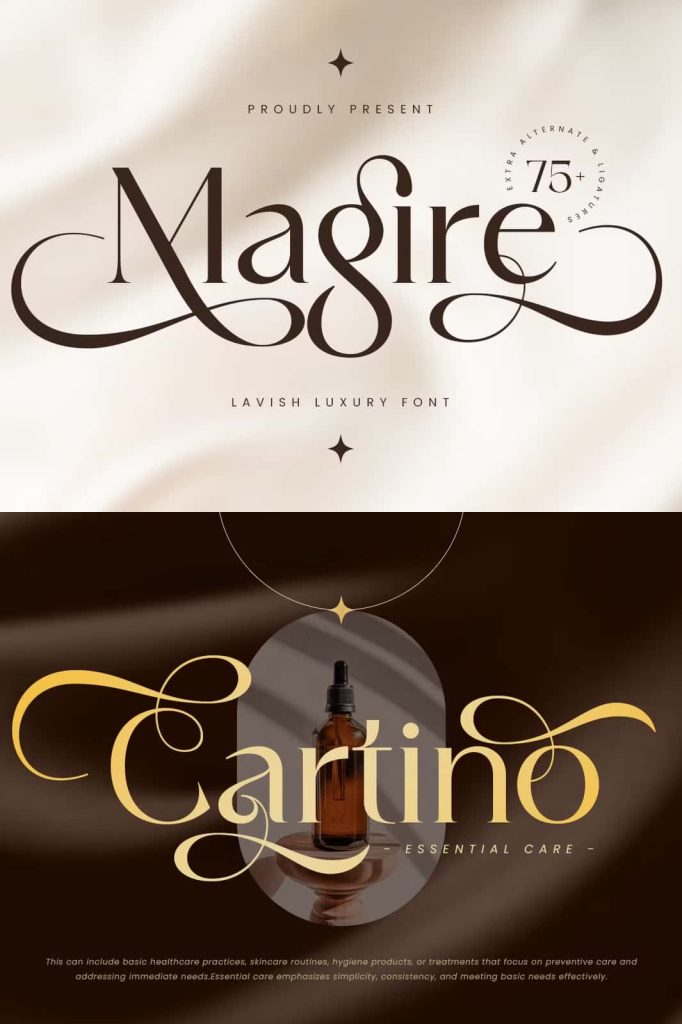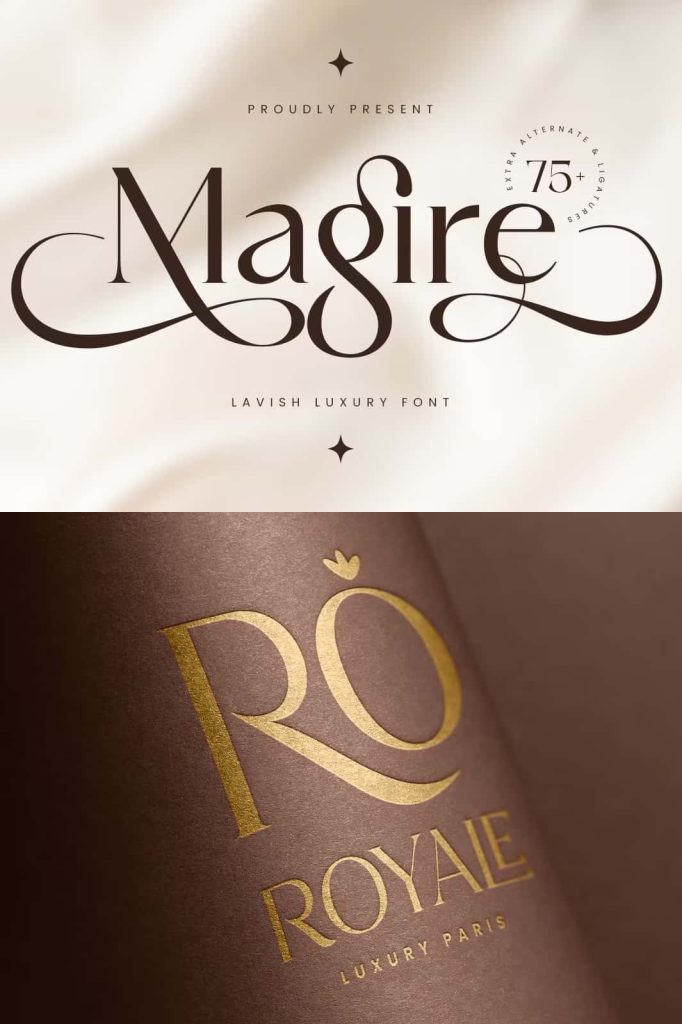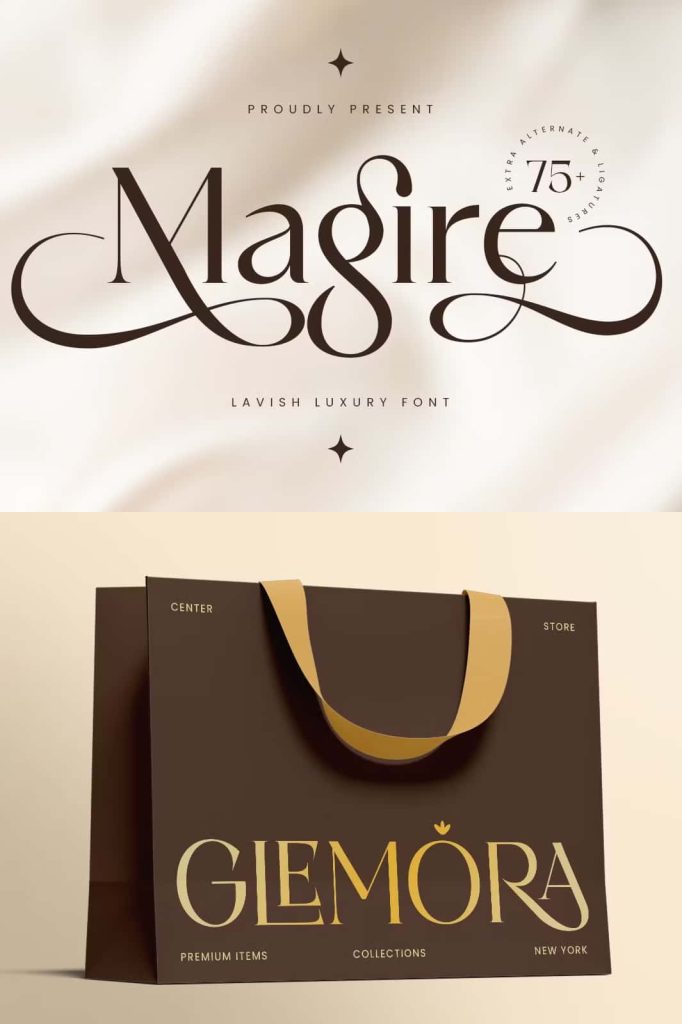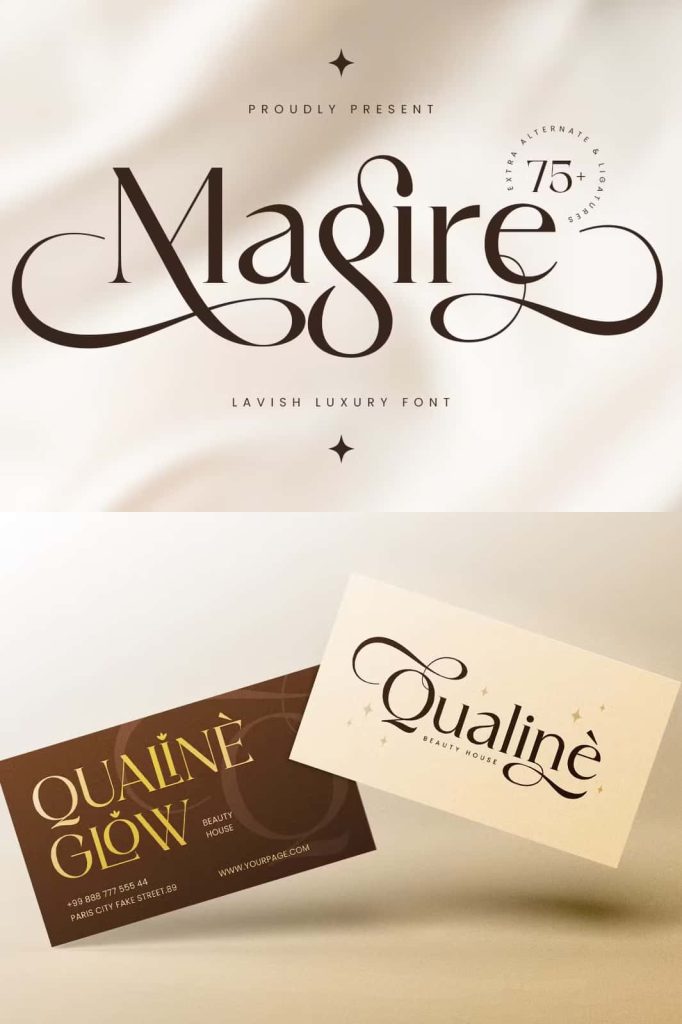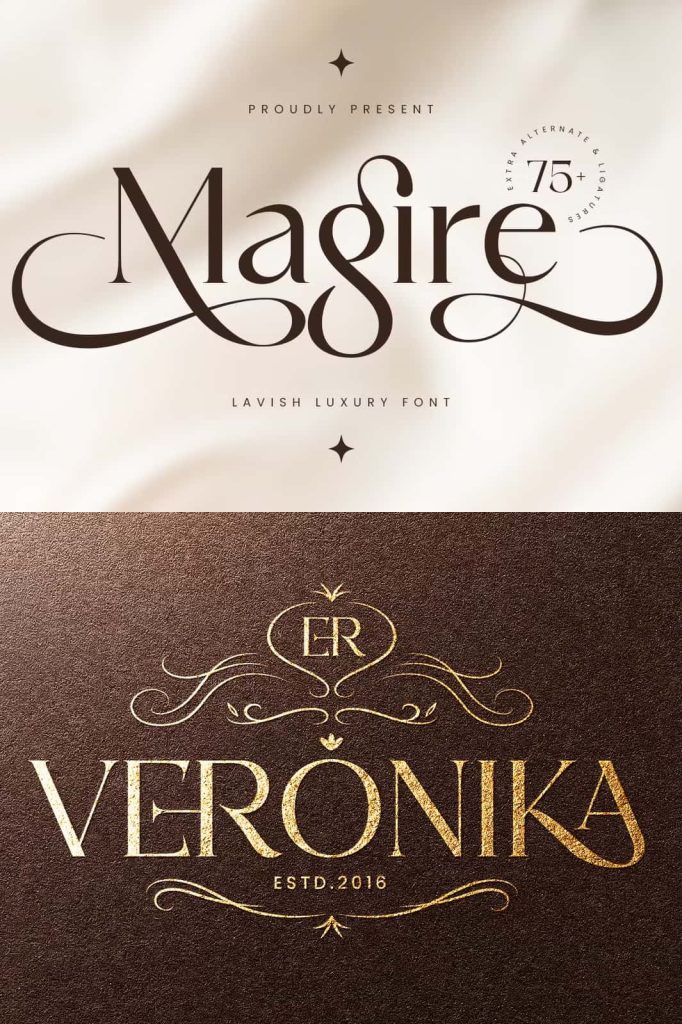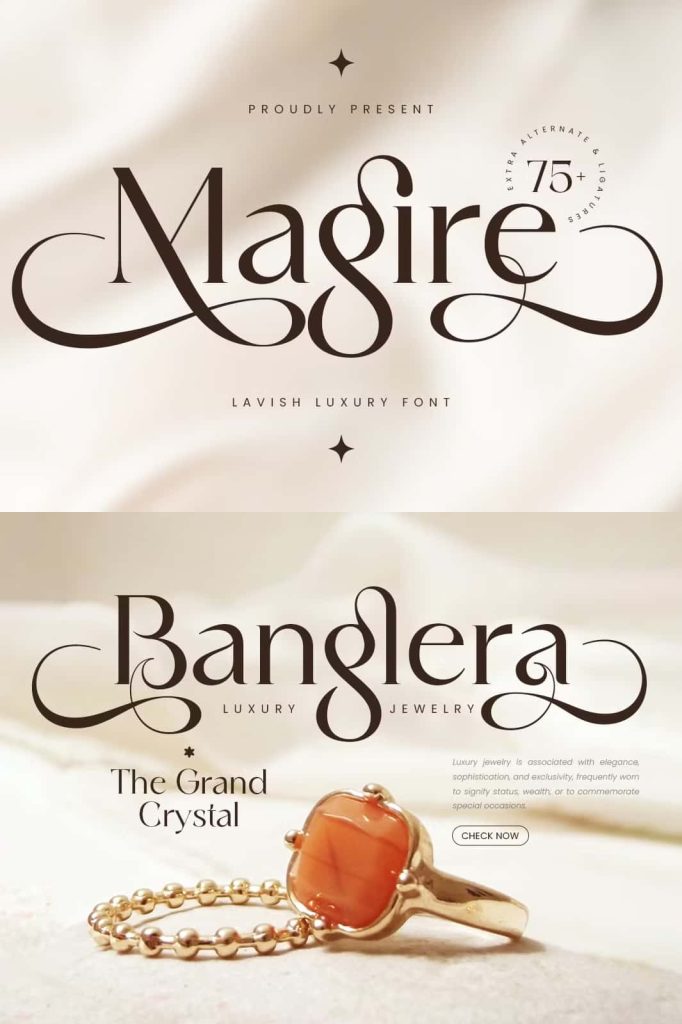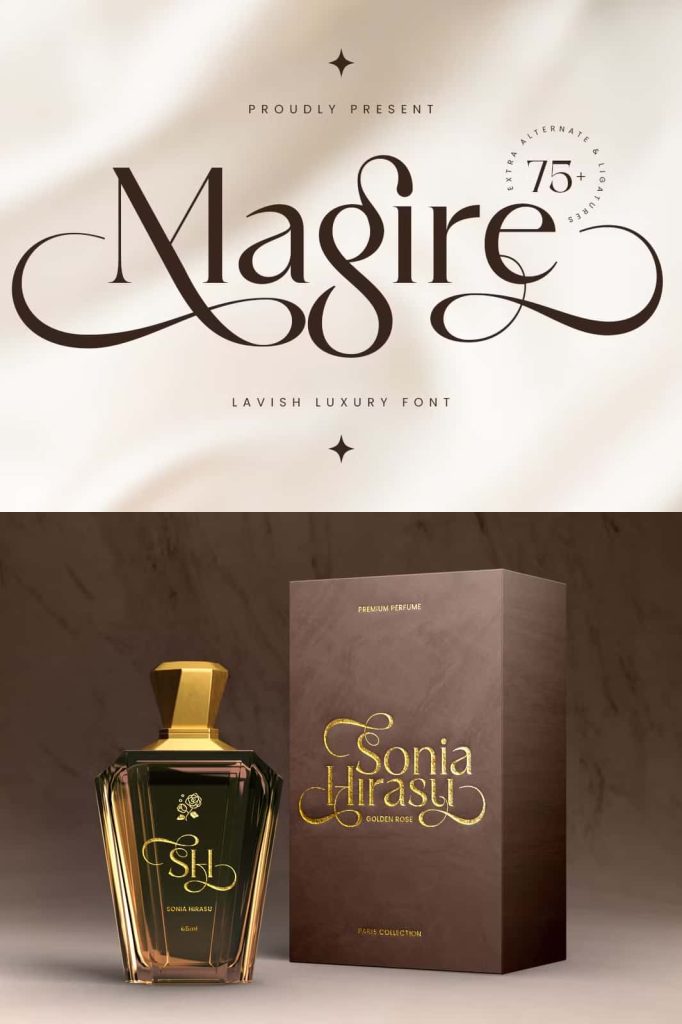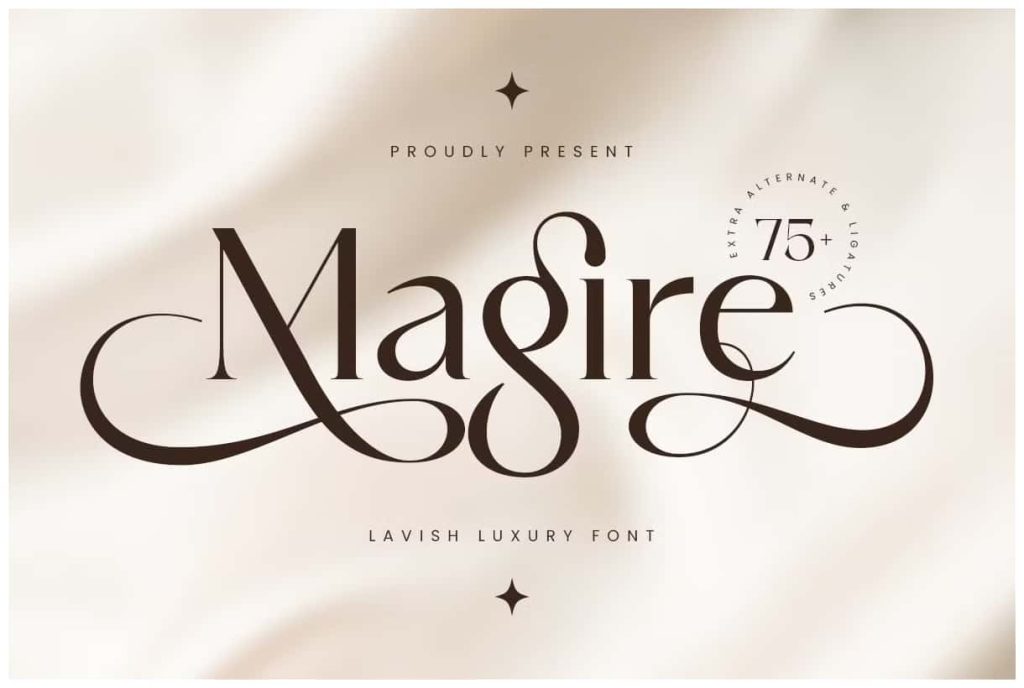
Magire – Lavish Luxury FontleastedJanuary 20, 2025Fonts Magire is a font designed for those who seek sophistication and elegance in every detail. Download